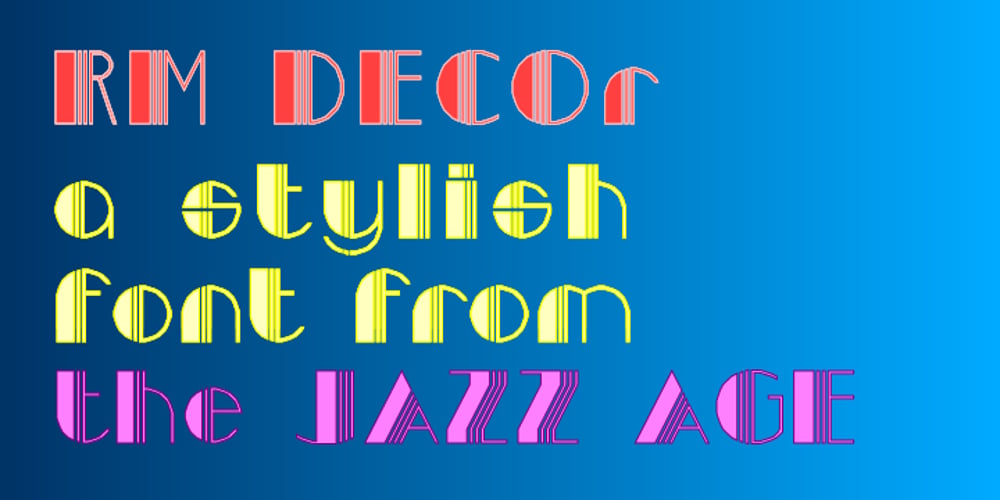
RM Deco Font Family was designed by Ray Meadows and published by Ray Meadows. RM Deco contains 1 styles and family package options. A mixture of bold and fine line helps this distinctive design evoke the spirit of the 1930s Jazz Age. Due to the modular nature of this design there may be a slight lack of smoothness to the curves at very large point sizes (around 100 pt and above).